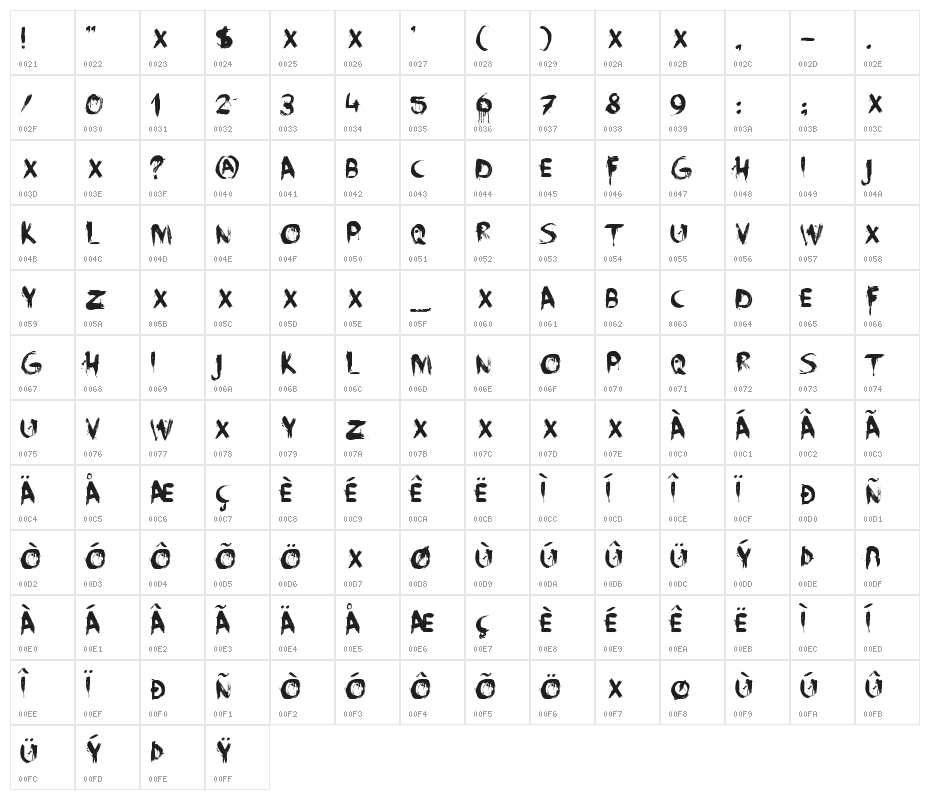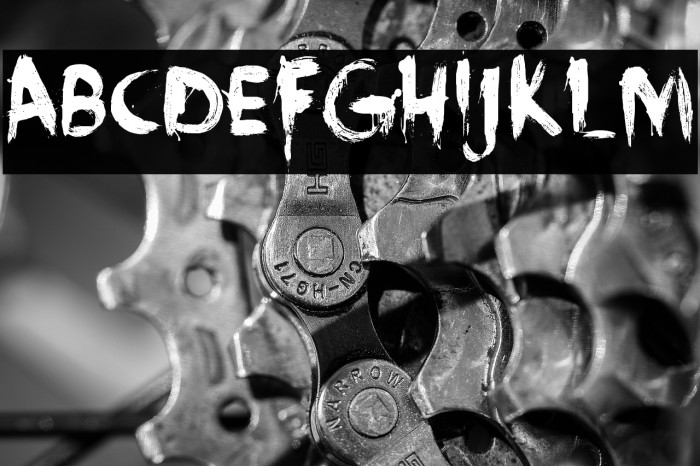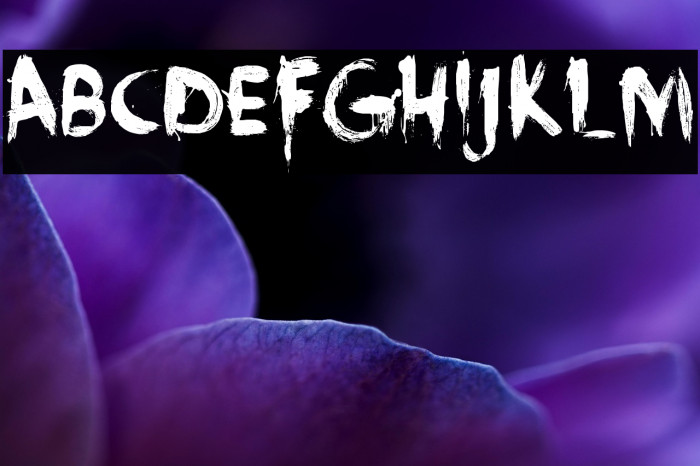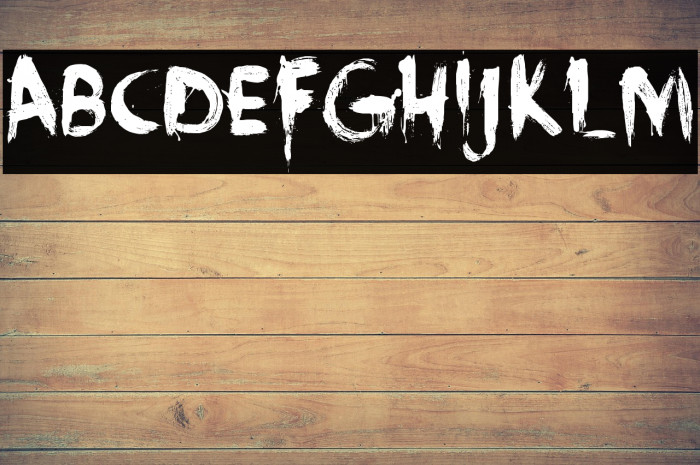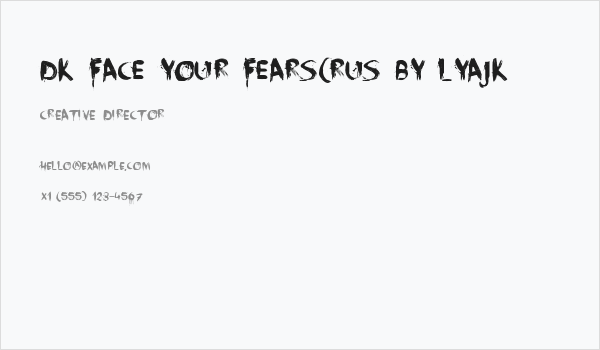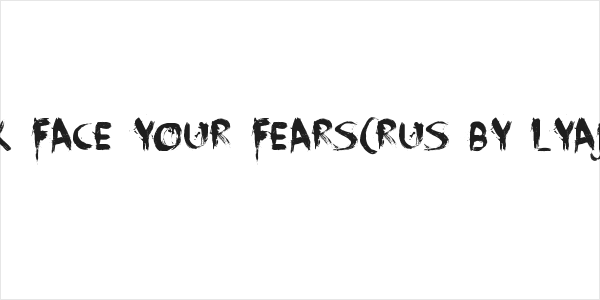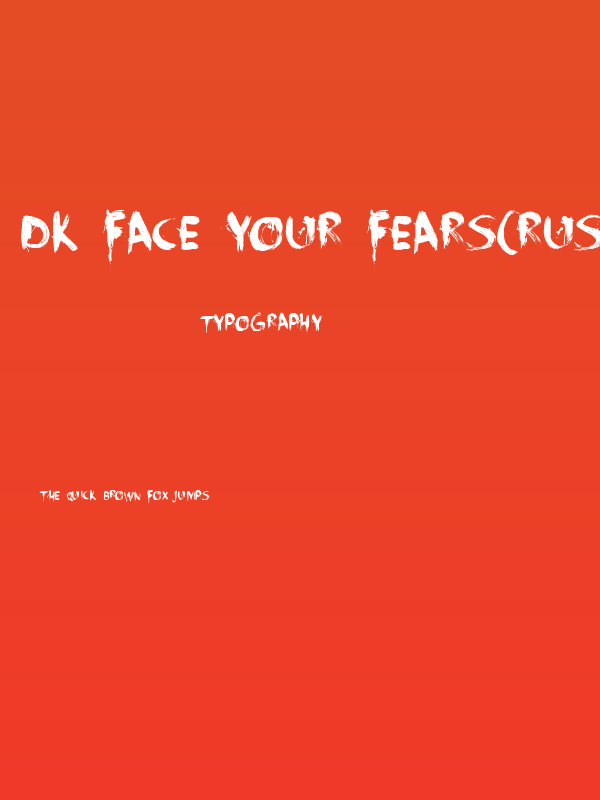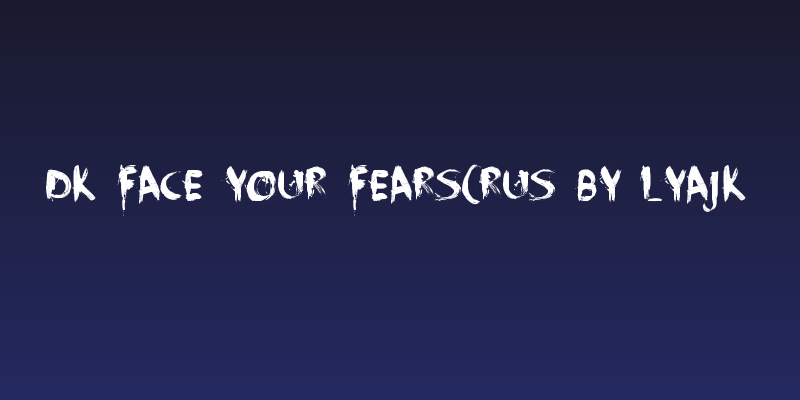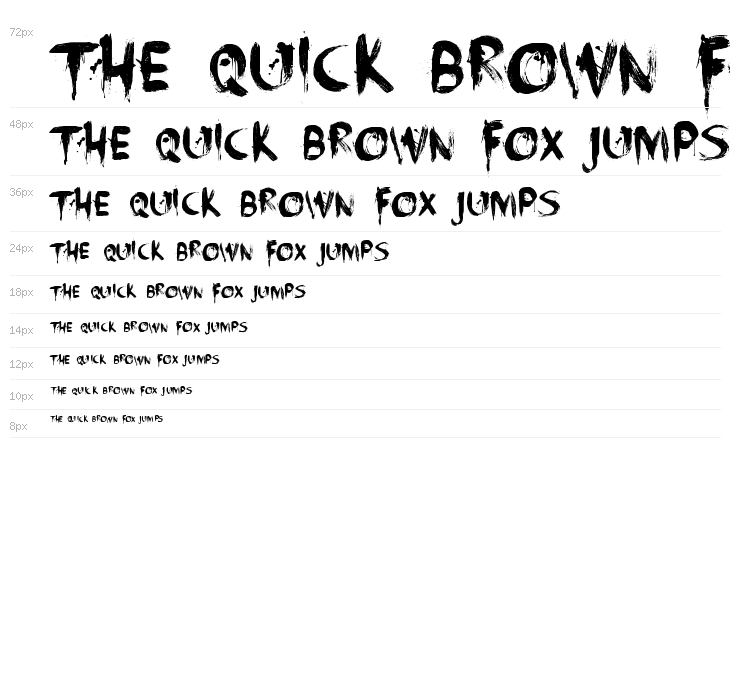
DK Face Your Fears(RUS BY LYAJK Font
DK Face Your Fears(RUS BY LYAJK Description
This font features a bold, dramatic style with a distressed, brushstroke appearance. Each character is uniquely crafted to give a sense of urgency and raw emotion, making it ideal for projects that require a strong visual impact. The letters have an uneven texture, with splatters and streaks that add to its edgy and rebellious look. This font is perfect for creating eye-catching headlines, posters, and designs that need to convey intensity and dynamism. Its artistic flair makes it suitable for creative projects that aim to stand out.
| Overall Style | Dramatic, Edgy, Artistic |
| Use Case | Headlines, Posters, Creative Designs |
| Proposed Projects | Ideal for horror movie posters, edgy album covers, rebellious fashion branding, and dynamic event flyers. |